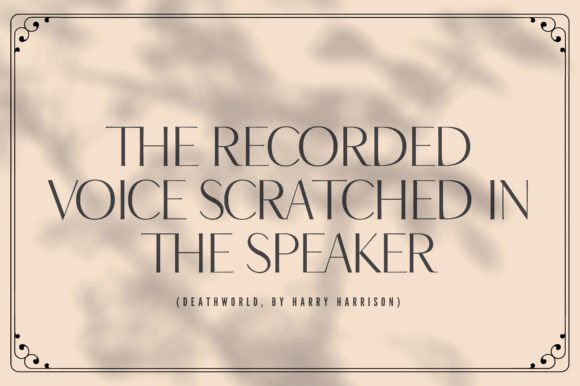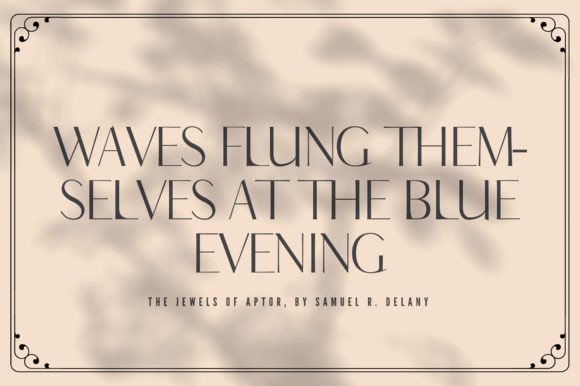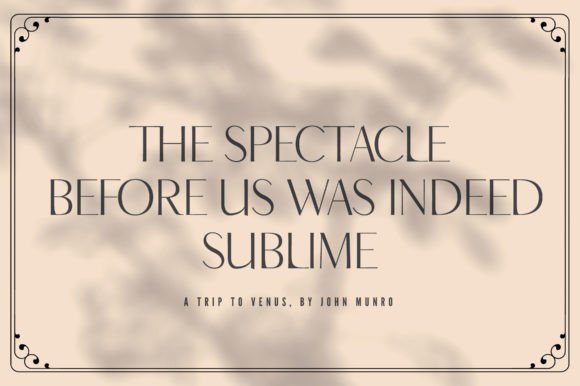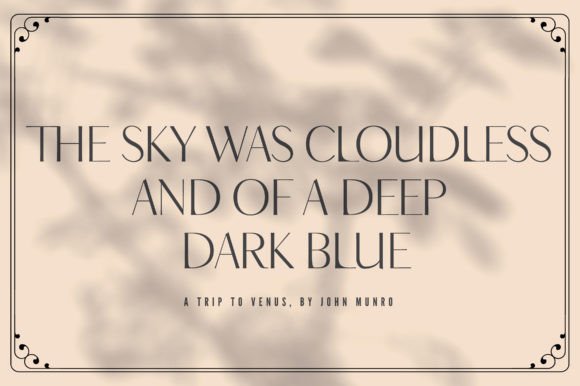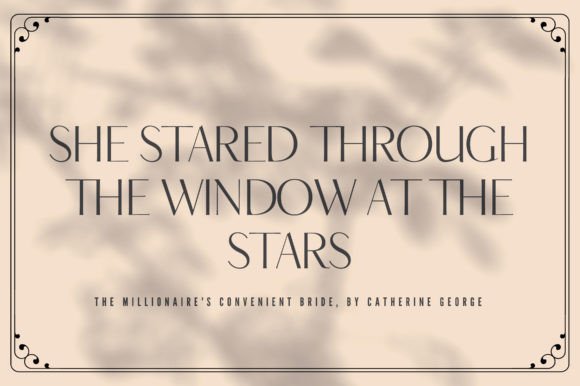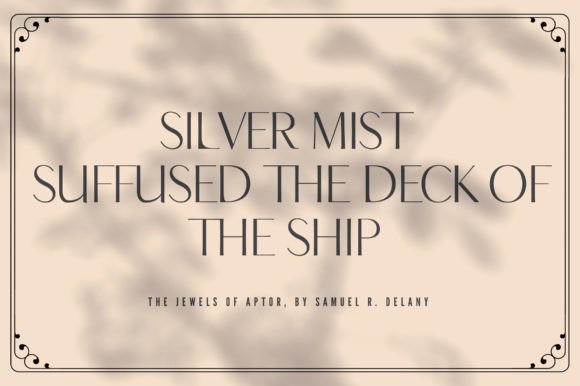
Introducing Chloe: The Epitome of Elegance in Typography
In the world of typography, few fonts manage to strike the perfect balance between simplicity and sophistication. Chloe Font, however, is a shining exception. This minimalist and stylish sans serif font is the epitome of elegance, boasting over 520 meticulously crafted glyphs that contribute to its sleek and refined aesthetic.
A Versatile Font for All Your Design Needs
One of the standout features of Chloe Font is its versatility. Available in both italic and regular weights, this font offers flexibility for a wide range of design projects. Whether you’re working on a logo, a website, or a branding project, Chloe’s timeless and graceful design will elevate your work to new heights.
The Unique Characteristics of Chloe Font
So, what sets Chloe Font apart from other sans serif fonts? The answer lies in its unique curves and angles, which hold inside the serif type properties. This distinctive feature creates a sense of modernity and understated luxury, making Chloe the perfect choice for high-end fashion brands, luxury products, and upscale services.
Perfect for High-End Design Projects
Chloe Font’s elegant design makes it an ideal choice for designers and crafters working on high-end projects. Its refined aesthetic and sophisticated feel will add a touch of luxury to any project, from fashion branding to upscale packaging. With Chloe, you can give your designs the elegance they deserve and make a lasting impression on your clients or audience.
The Benefits of Using Chloe Font
So, why should you choose Chloe Font for your next design project? Here are just a few benefits of using this exceptional font:
- Timeless design: Chloe’s classic and elegant design will never go out of style, ensuring your project looks great for years to come.
- Versatility: With both italic and regular weights, Chloe can be used for a wide range of design projects, from logos to websites.
- High-end feel: Chloe’s sophisticated aesthetic makes it perfect for high-end fashion brands, luxury products, and upscale services.
- Easy to read: Despite its elegant design, Chloe is highly legible, making it perfect for body text and other large blocks of text.
How to Use Chloe Font in Your Designs
Using Chloe Font in your designs is easy. Here are a few tips to get you started:
- Pair it with other fonts: Chloe pairs well with other sans serif fonts, as well as serif fonts with a similar elegant feel.
- Experiment with weights: Try using different weights of Chloe to create visual interest and hierarchy in your designs.
- Use it for headlines and body text: Chloe’s legibility makes it perfect for both headlines and body text.
In conclusion, Chloe Font is a game-changer for designers and crafters looking to add a touch of elegance and sophistication to their projects. With its unique curves and angles, versatile design, and high-end feel, Chloe is the perfect choice for any project that demands the best. Upgrade your design game today and experience the perfect balance of simplicity and sophistication with Chloe Font.